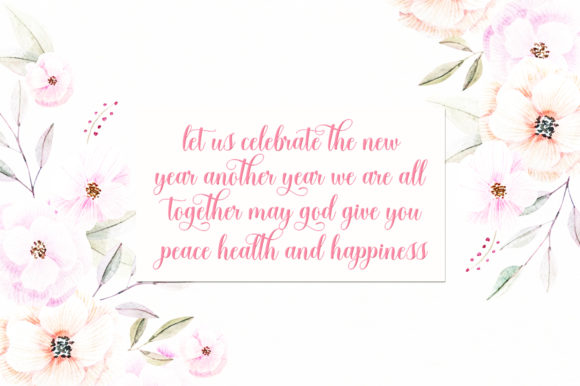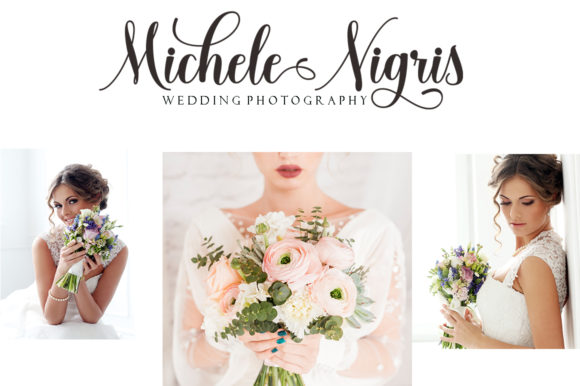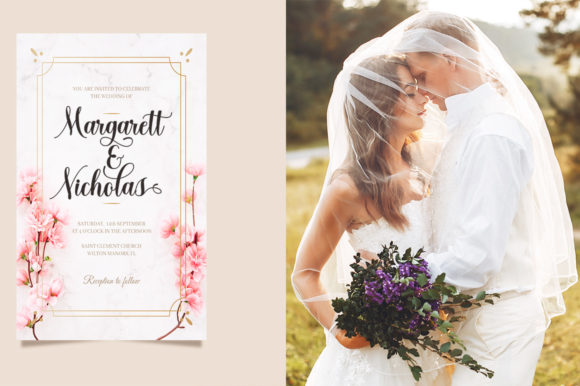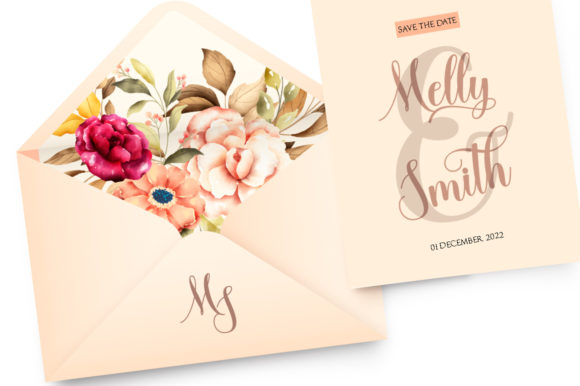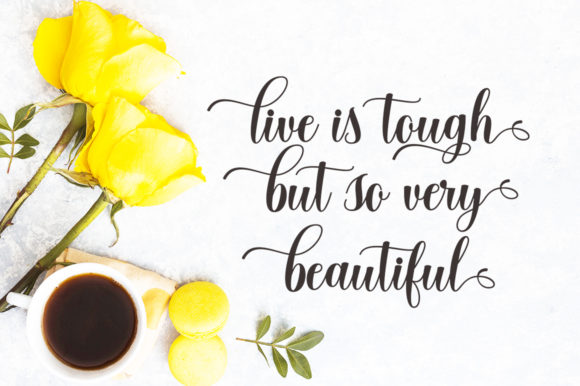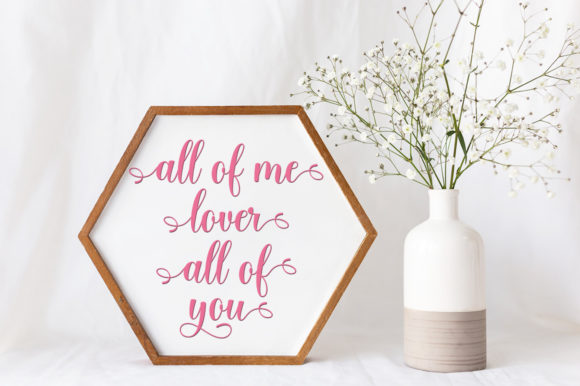
Yoshita Script Font
About Yoshita Script Font
Yoshita is a gorgeous script font featuring playful and romantic swashes. Use it to turn any design idea into an authentic standout!